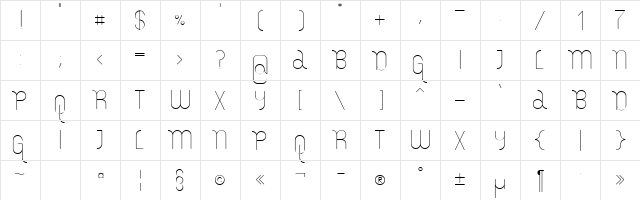
Lemur_Light_DEMO Regular
Design Context for Lemur_Light_DEMO Typeface
Lemur_Light_DEMO offers clean, dependable letterforms without strong stylistic allegiance, making it a practical choice for designers who need flexibility. The delicate stroke weight brings airiness and refinement to layouts.